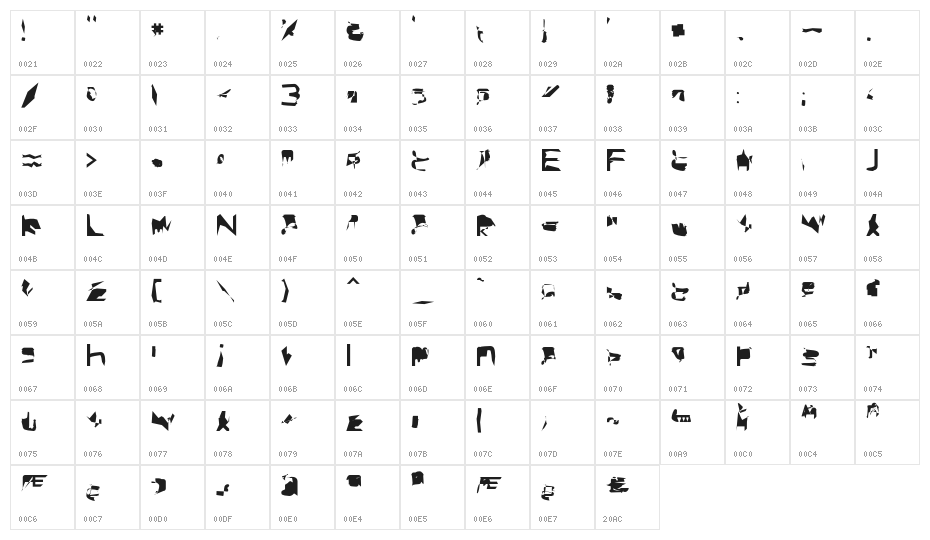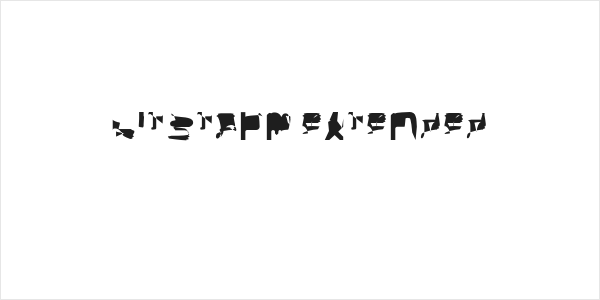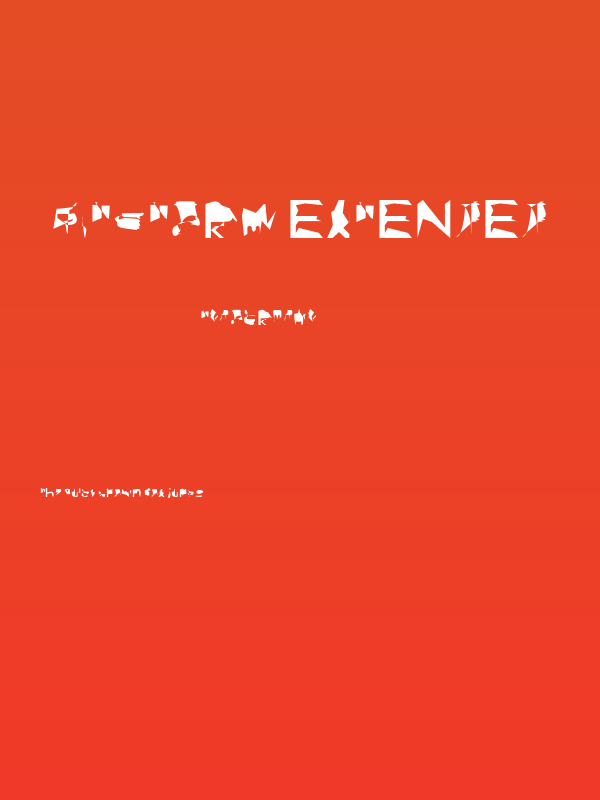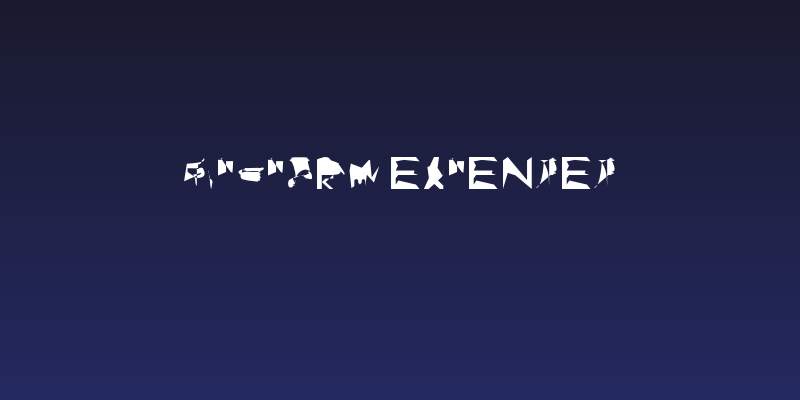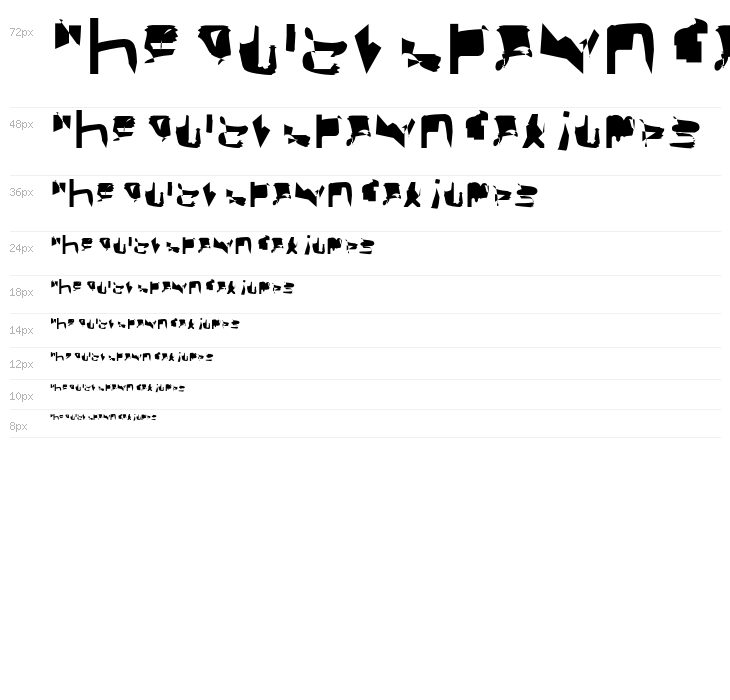
bitstorm extended Font
✎ Distorted Eroded
| Stil general | Modern, Edgy |
| Caz de utilizare | Logos, Headlines, Artistic projects |
| Proiecte propuse | Ideal for digital art, experimental design projects, album covers, or any creative work that seeks to convey a sense of disruption or modernity. |